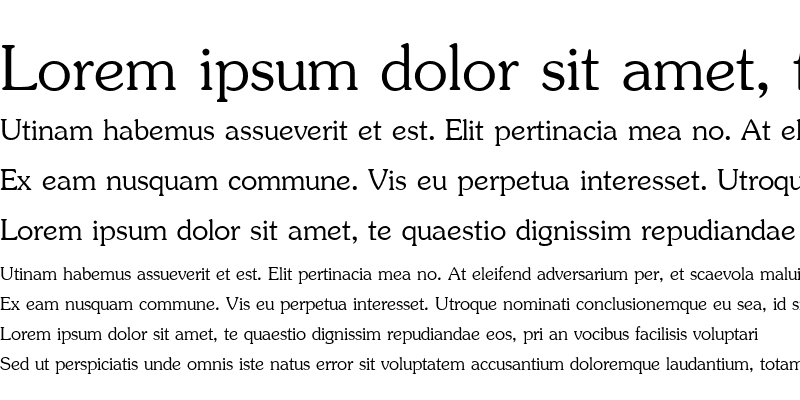
Jasmine UPC Font is perfect for Thai restaurant branding, fragrant tea packaging, delicate perfume labels, tropical spa communications, Asian flower shop signage, Southeast Asian cultural events, aromatherapy product designs, tranquil meditation centers, exotic fragrance advertisements, and elegantly fragrant marketing communications.
Jasmine UPC Font is exciting because it captures the delicate beauty and intoxicating fragrance of jasmine blossoms with its gracefully flowing letterforms that seem to dance like petals in gentle breezes and carry the sweet sophistication of traditional Asian gardens. Its exquisitely refined character design reflects both the subtle elegance of Southeast Asian culture and the therapeutic tranquility that jasmine's natural fragrance brings to stressed modern lives, making it perfect for brands celebrating natural beauty and aromatic sophistication.
Jasmine UPC Font family includes light, regular, medium, bold, and black weights, each with corresponding italic versions. The font family also features floral ornaments, jasmine-inspired ligatures, Thai cultural symbols, and fragrant decorative elements that enhance its aromatic aesthetic and Southeast Asian versatility.
This fragrantly elegant typeface represents the perfect fusion of natural beauty and cultural sophistication. Jasmine UPC Font Free Download allows designers to experience its aromatic appeal before making a commercial commitment. The font's ability to convey both delicate fragrance and cultural authenticity makes it ideal for wellness brands, Thai businesses, and luxury companies targeting audiences seeking natural beauty and aromatic tranquility.
Whether you're developing spa brand identities, creating Thai cultural materials, or designing fragrance-focused communications, Jasmine UPC Font brings an unmistakable sense of floral elegance and Southeast Asian authenticity to every project. Its delicate character and jasmine heritage create sensory connections that resonate with audiences seeking natural beauty and aromatic wellness experiences.
The font's versatility excels in wellness and cultural environments where natural beauty and aromatic appeal are cherished. Its fragrant character makes it particularly effective for spas, Thai restaurants, aromatherapy brands, and wellness centers seeking to establish authentic relationships with audiences appreciating natural fragrance and Southeast Asian cultural elegance.
For designers working on projects requiring genuine floral beauty and Thai cultural appeal, Jasmine UPC Font provides an exceptional solution. Its fragrantly elegant presence and comprehensive jasmine-themed elements offer the tools needed for creating truly aromatic communications, while its delicate sophistication ensures your designs capture the natural beauty and cultural authenticity that defines the most treasured jasmine experiences and Southeast Asian wellness traditions.